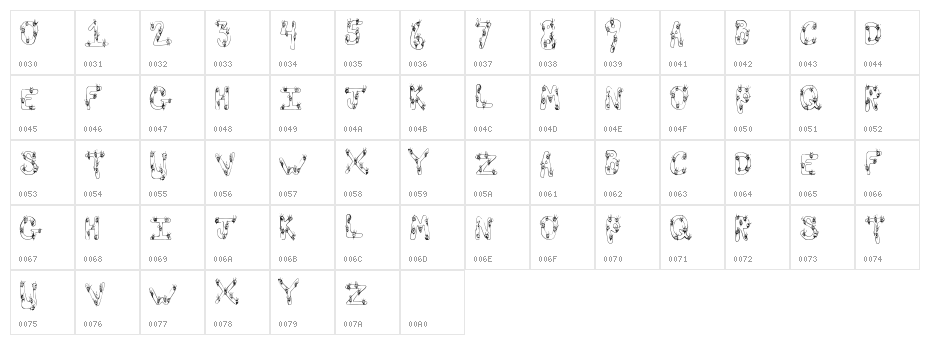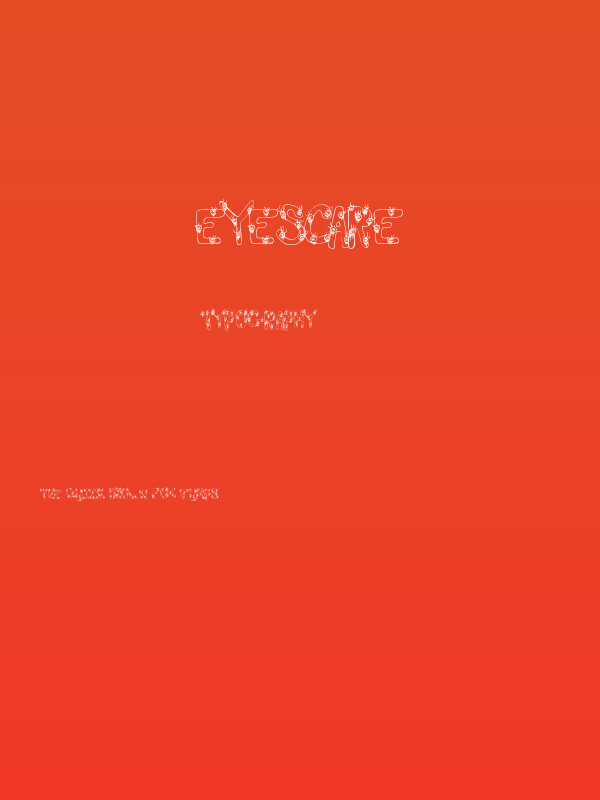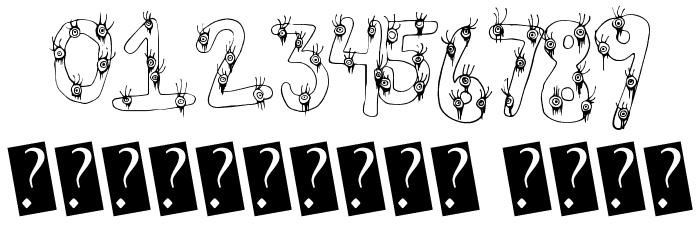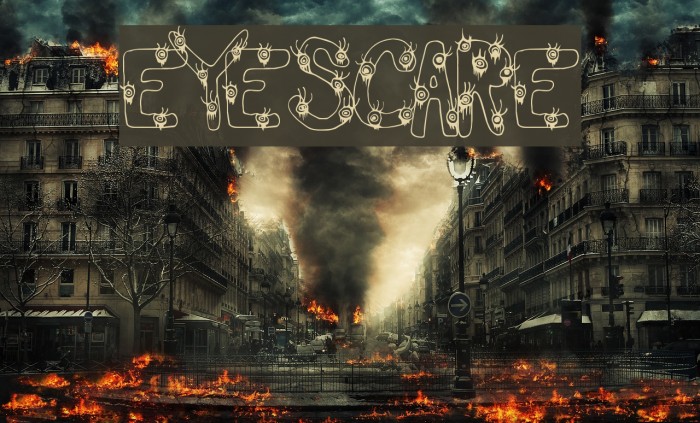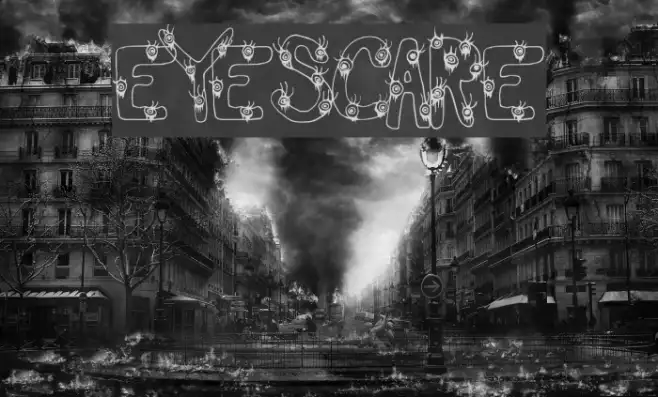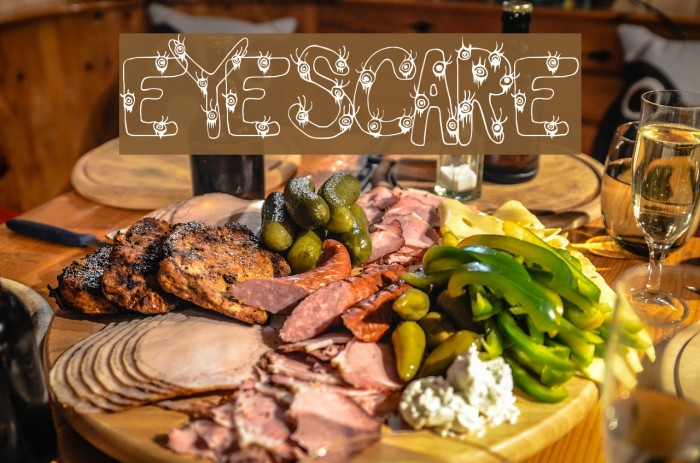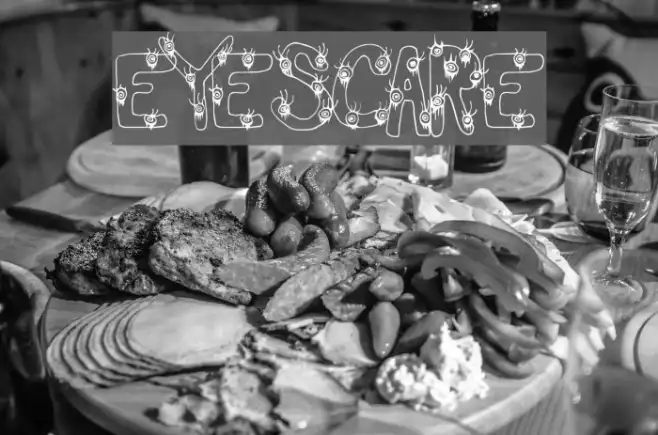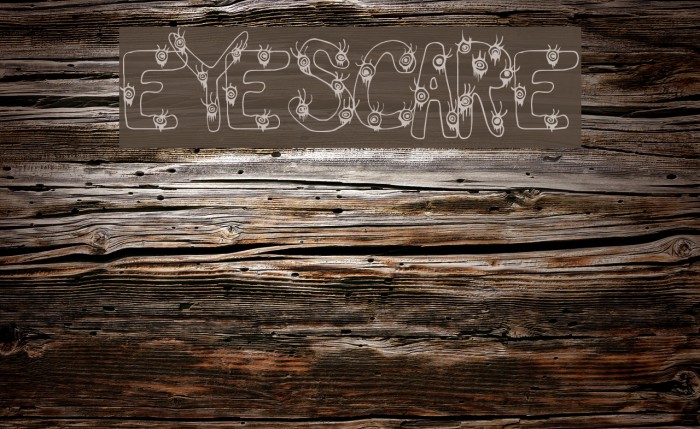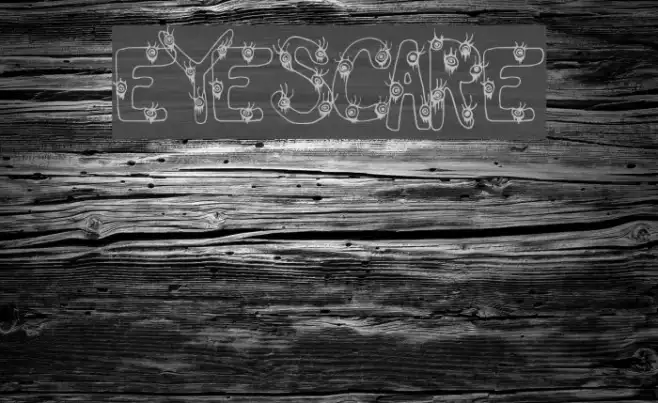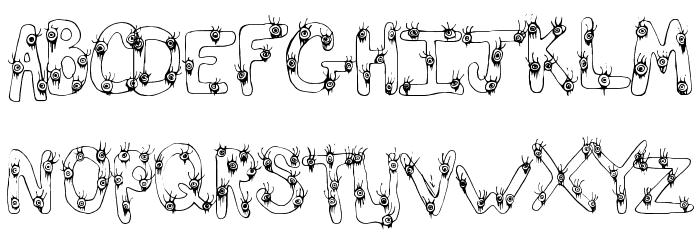
EyeScare Font
EyeScare Description
This font is a playful and whimsical design featuring letters and numbers adorned with quirky, cartoonish eyes. Each character is uniquely crafted with eyes peering in various directions, giving the font a lively and animated appearance. The strokes are bold and rounded, creating a friendly and approachable feel. The special characters continue this theme, incorporating the eye motif to maintain consistency across the set. This font is perfect for projects that require a fun and engaging visual element, such as children's books, Halloween-themed designs, or playful branding.
| Overall Style | Playful, Whimsical |
| Proposed Projects | Ideal for children's books, Halloween designs, playful branding, and eye-catching posters. |